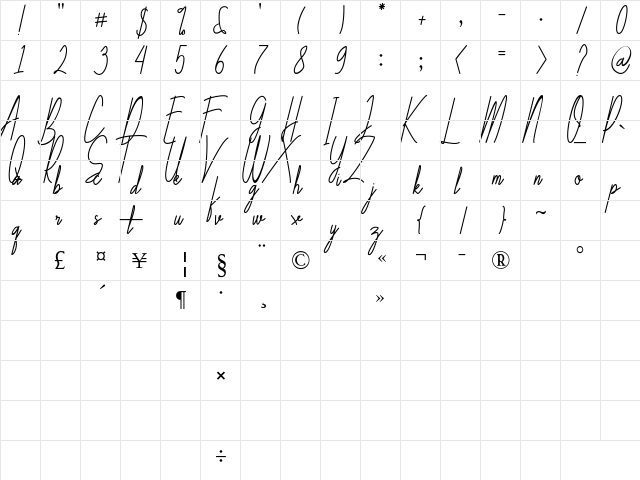
Galliyani Regular
Design Context for Galliyani Typeface
Galliyani is a composed and adaptable typeface that performs quietly and consistently across a wide range of design contexts.